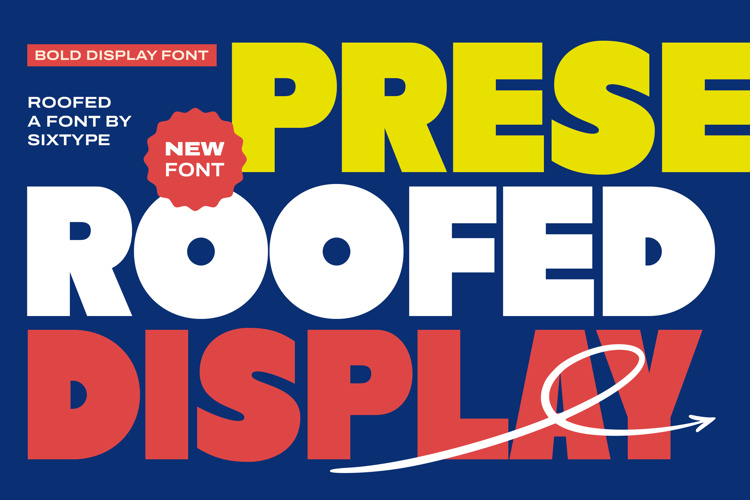
Roofed - Font
Bold Display Font with Playful Confidence
Roofed is a bold display font designed to make a strong statement with a fun and confident attitude. Featuring thick strokes, rounded shapes, and eye-catching proportions, this font delivers high visual impact while remaining friendly and approachable.
Its playful construction and solid letterforms make Roofed perfect for bold headlines and expressive typography. The font performs exceptionally well at large sizes, helping your message stand out clearly and memorably.
With complete uppercase, lowercase, numbers, and punctuation, Roofed is built for modern designs that want to feel energetic, bold, and creative.